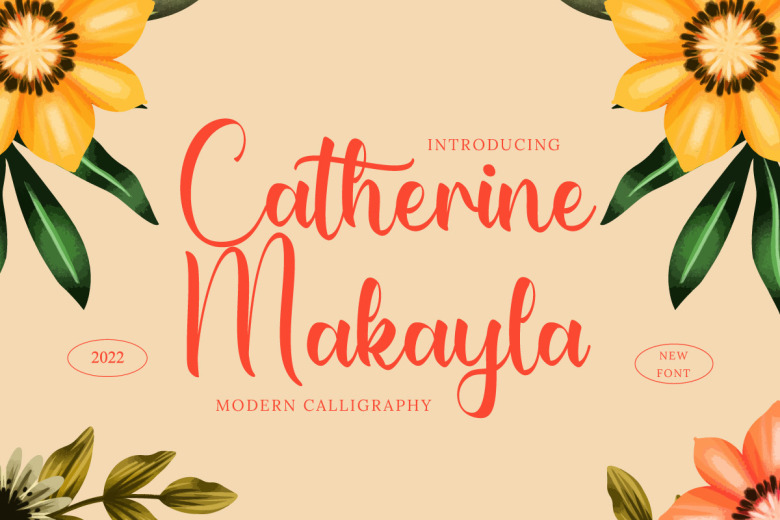
Catherine Makayla Font
Catherine Makayla Font is a delicate, elegant and flowing handwritten calligraphy script font. It has beautiful and well balanced characters and as a result, it matches a wide pool of designs. You can use it as a logo, badge, insignia, packaging, headline, poster, t-shirt/apparel, greeting card, and wedding invitation.
Catherine Makayla Calligraphy Font